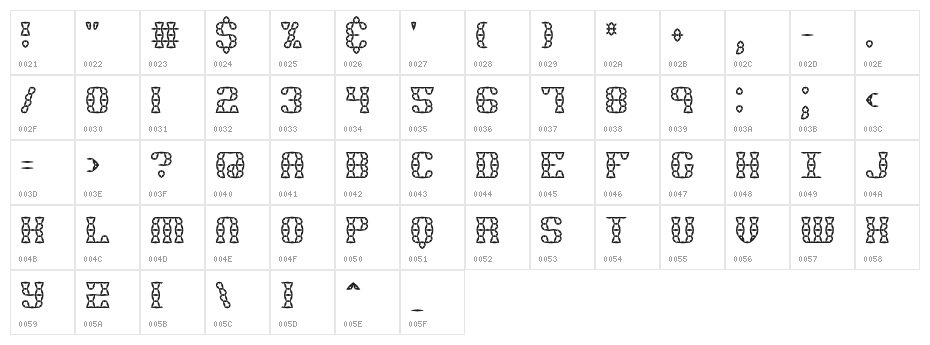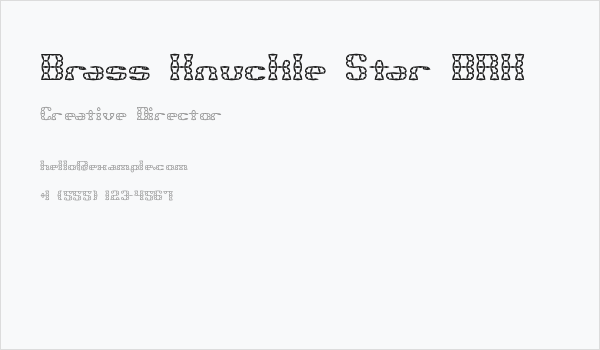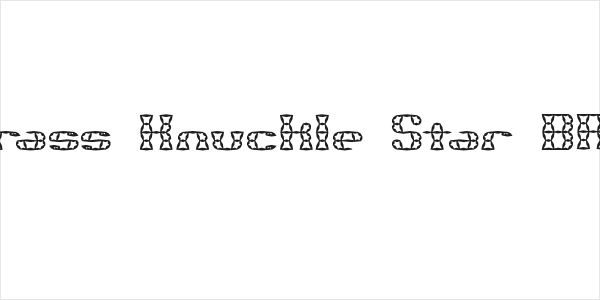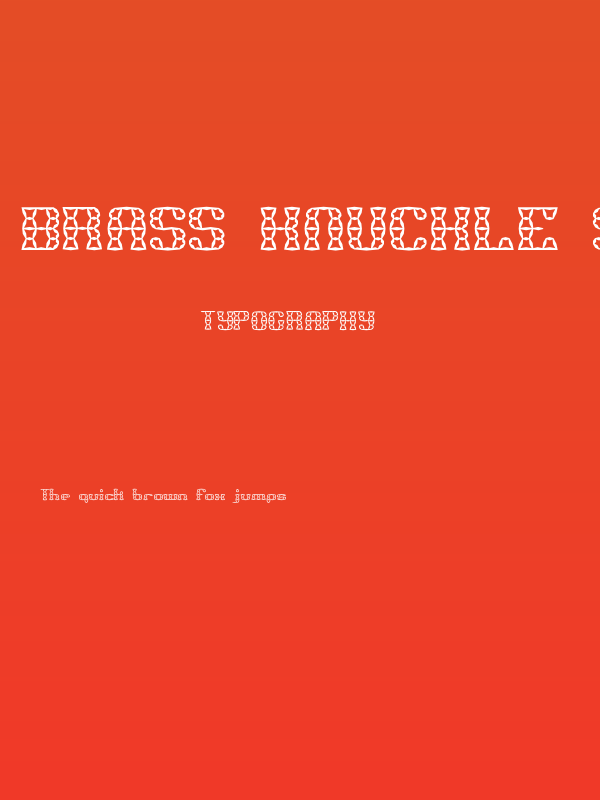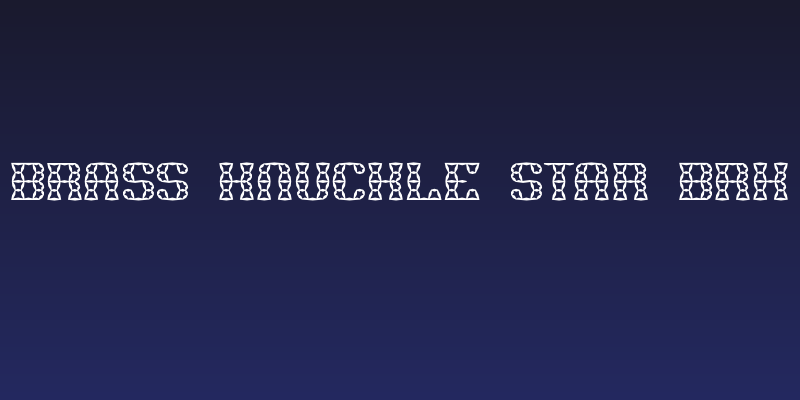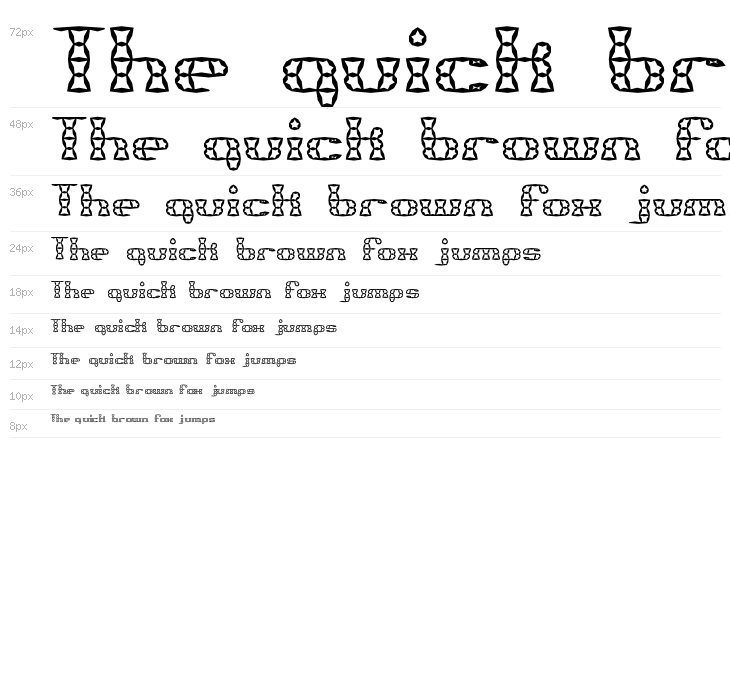
Brass Knuckle Star BRK Font
Brass Knuckle Star BRK Description
This font features a bold, decorative style with a unique, edgy appearance. Each character is designed with a pattern resembling interconnected, angular shapes, giving it a rugged and industrial feel. The uppercase and lowercase letters maintain a consistent design, with the lowercase being slightly smaller but equally bold. Numbers and special characters follow the same stylistic pattern, ensuring uniformity across all glyphs. The font's intricate design makes it stand out, ideal for projects that require a strong visual impact.
| Proposed Projects | Perfect for posters, album covers, branding for edgy or industrial-themed products, and any project needing a strong visual statement. |